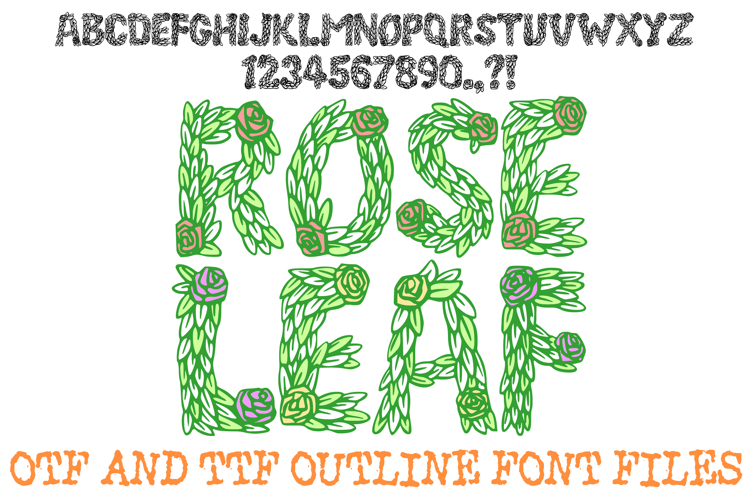
Rose and Leaf Floral Alphabet Lettering Font ABC OTF Type
Infuse your typography with organic, whimsical charm using this beautifully detailed display font. Every single uppercase letter, number, and punctuation mark is intricately constructed from dense clusters of hand-drawn leaves and blooming rose buds. The style combines a structured display layout with a playful, cartoon-inspired botanical aesthetic, featuring clean black line art that outlines individual foliage elements.
Ideal For Creative Assets & Crafting
Custom Merchandise: Design eye-catching graphics for t-shirts, canvas tote bags, and summer festival apparel.
Stationery & Prints: Perfect for romantic wedding invitations, bridal shower signage, garden party menus, or customized greeting cards.
Stickers & Decals: Create lovely die-cut vinyl decals for journals, water bottles, and planner covers.
Boutique Branding: Elevate logos, business cards, and social media packaging for plant shops, florists, or organic beauty brands.